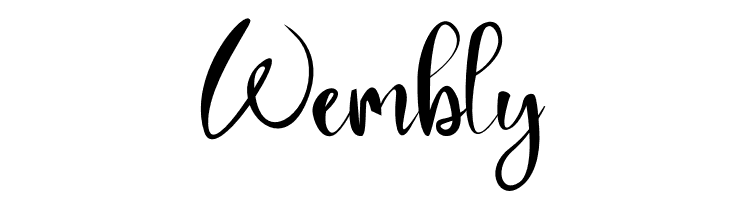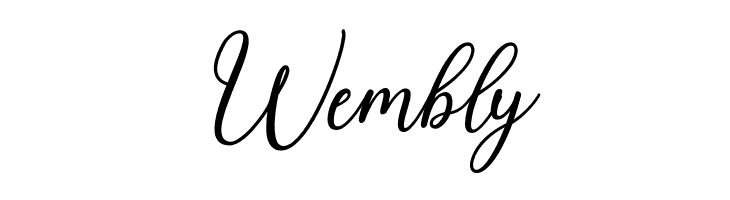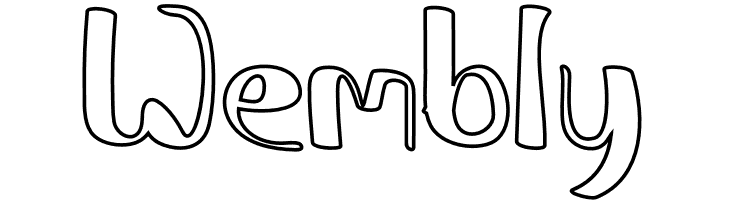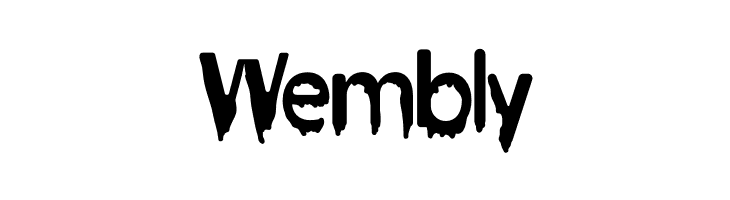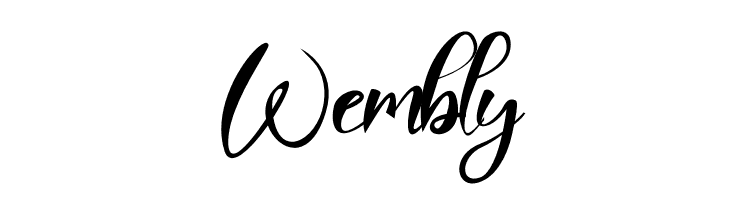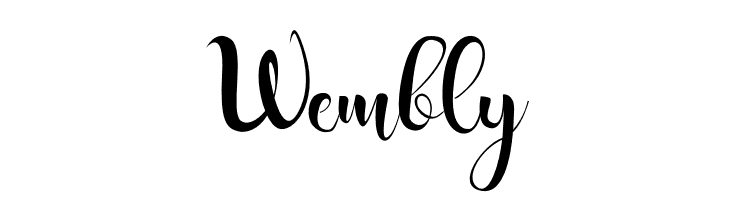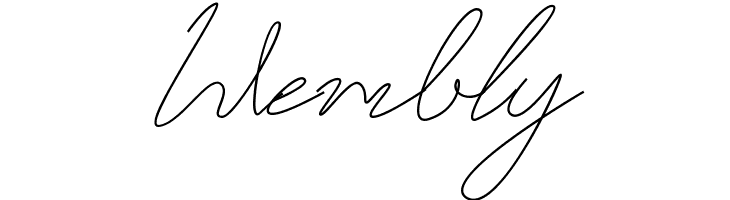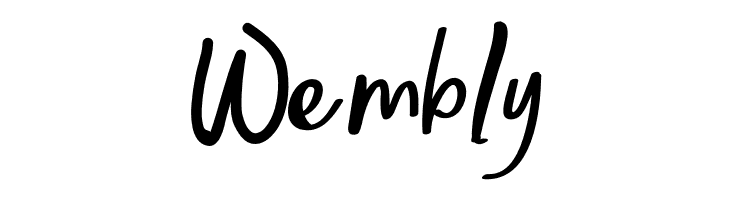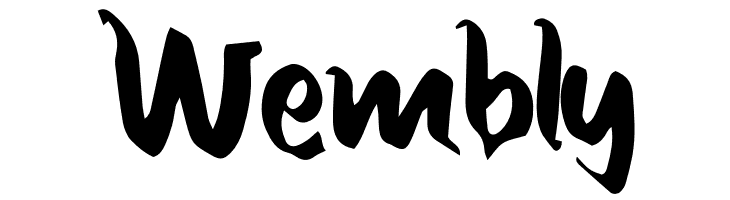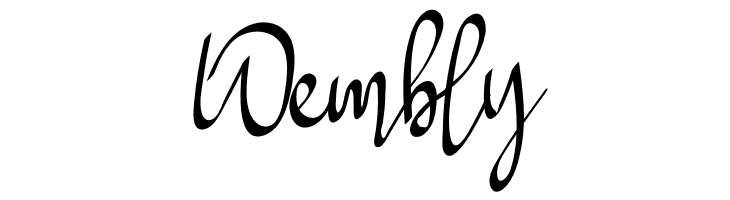
A lively and expressive script font with flowing, interconnected letters.
A fluid, cursive font with a natural handwritten style.
A graceful and elegant script font with flowing, interconnected letters.
A lively, flowing script font with a cursive, hand-drawn appearance.
A playful, hand-drawn font with a whimsical and cartoonish style.
A spooky, dripping font ideal for horror themes.
A dynamic and fluid script font with elegant, flowing lines.
A modern, cursive font with elegant flourishes and smooth curves.
Elegant script font with flowing, connected characters and a harmonious design.
A dynamic handwritten font with fluid, expressive strokes and a casual appearance.
A bold, expressive handwritten font with a brush-like texture.
A lively, cursive font with fluid connections and expressive characters.
A bold, dynamic script font with flowing, cursive letterforms.
A bold, playful handwritten font with rounded characters.
A dynamic and flowing script font with elegant, cursive letterforms.
A dynamic and elegant script font with smooth curves and expressive letterforms.
A cursive, handwritten-style font with elegant, flowing strokes.
A bold, calligraphic font with dramatic curves and sharp edges.
An elegant, flowing script font with a handwritten style.
A casual, handwritten font with a natural flow and moderate stroke thickness.
A bold, flowing script font with elegant, interconnected characters.
A bold, playful handwritten font with energetic strokes and a lively feel.
A flowing, cursive script font with elegant, connected characters.
A bold, dynamic brush script font with energetic strokes and a hand-painted feel.
A graceful and sophisticated script font with flowing, connected strokes.
A bold, elegant script font with fluid connections and high contrast.
A playful, casual handwritten font with smooth, flowing strokes.
A bold, cursive font with elegant, flowing lines and decorative swashes.
A bold, brushstroke-style font with a dynamic and artistic flair.
A modern, elegant script font with flowing curves and intricate loops.
A bold, brush-style font with dynamic, handcrafted strokes.
A dynamic and expressive script font with fluid, cursive letterforms.
A bold, brush-style font with a dynamic, handcrafted appearance.
A bold, brush-style font with a hand-painted, artistic appearance.